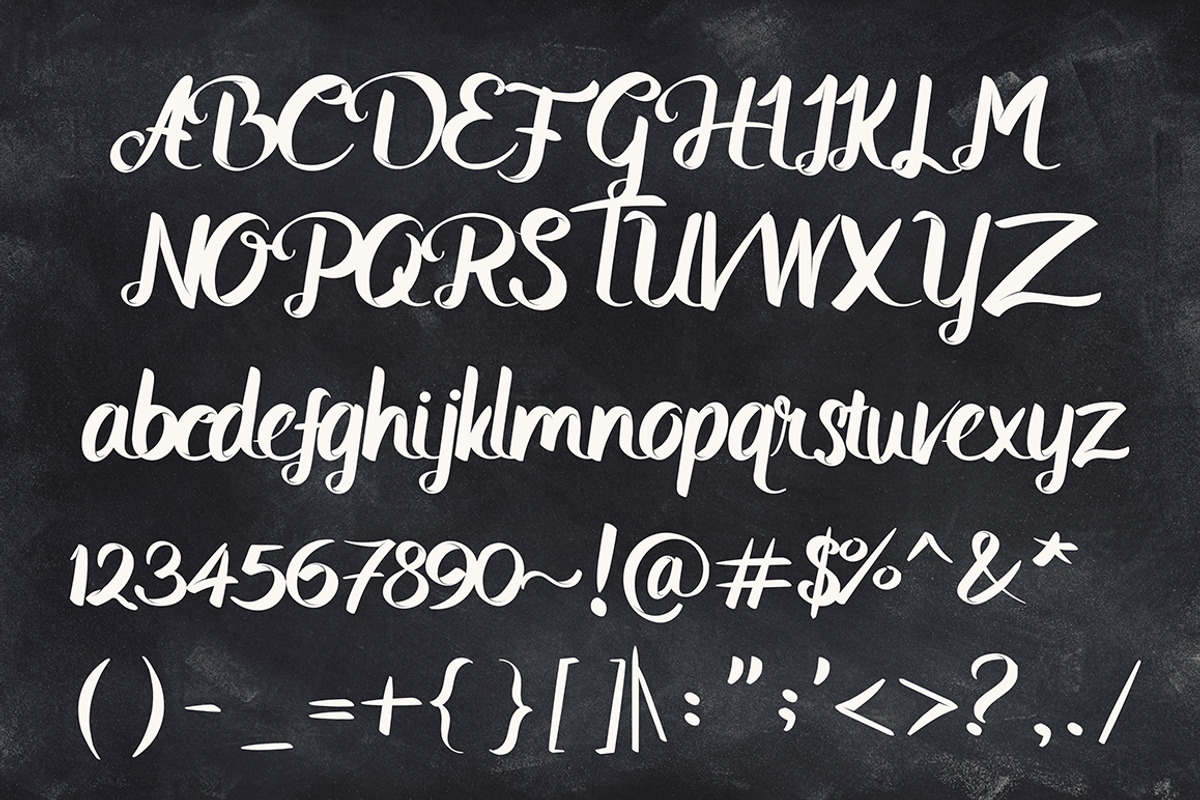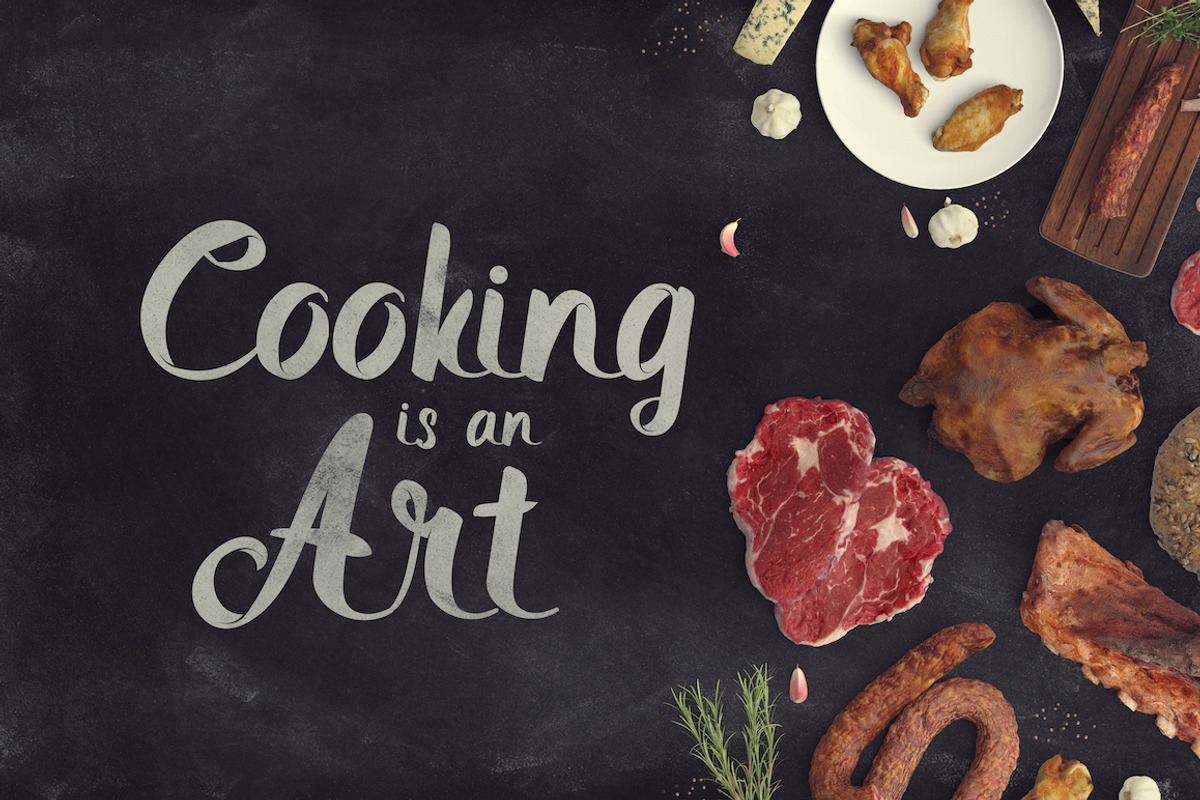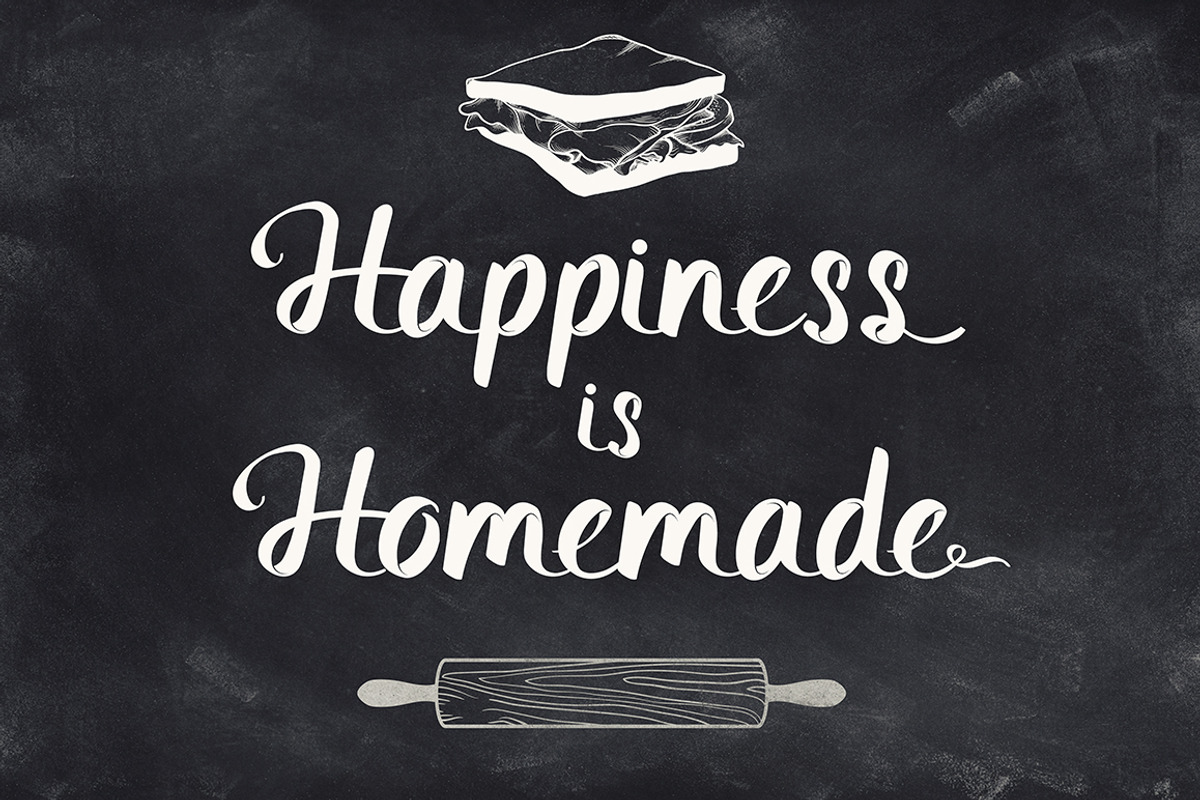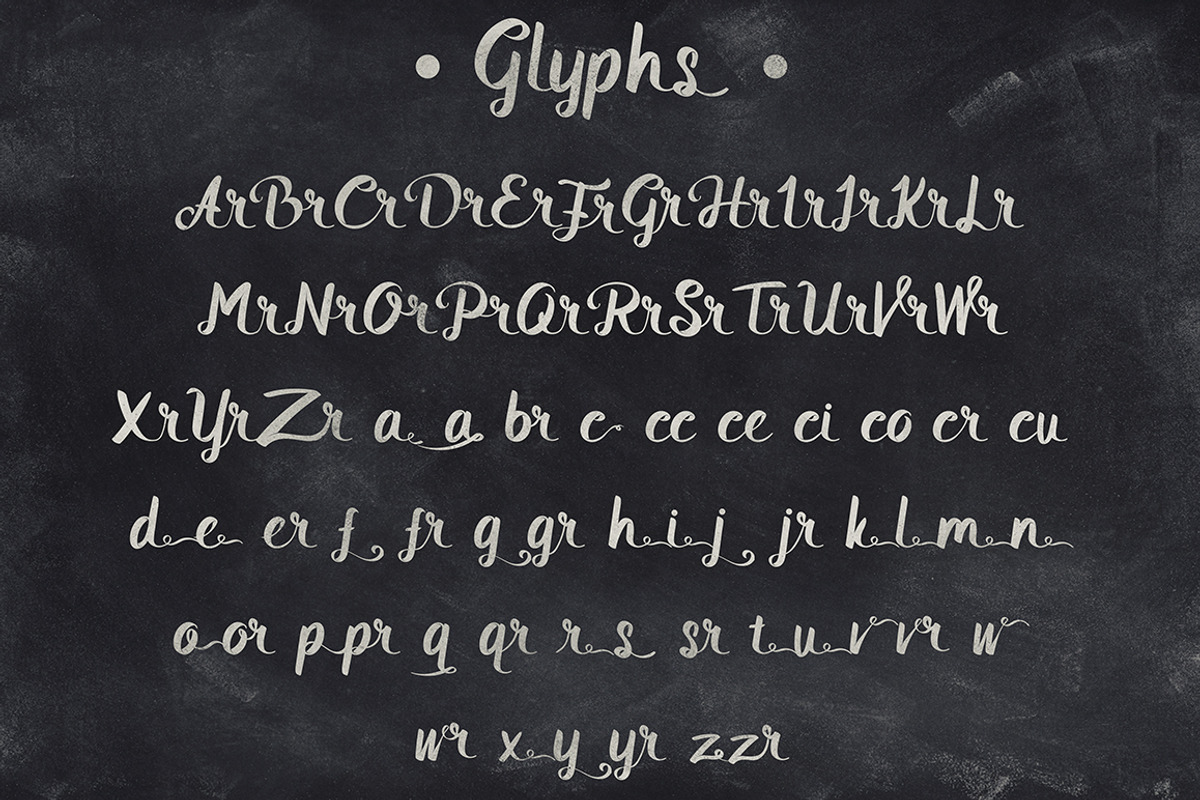
Pepper Hands
Pepper Hands by Font Bundles is a font selected for branding, posters, packaging, typography.
- This font contains uppercase, lowercase, numbers, symbols and punctuation as standard.
Why Pepper Hands is worth a look
Pepper Hands by Font Bundles fits naturally into Branding, posters, packaging, typography.